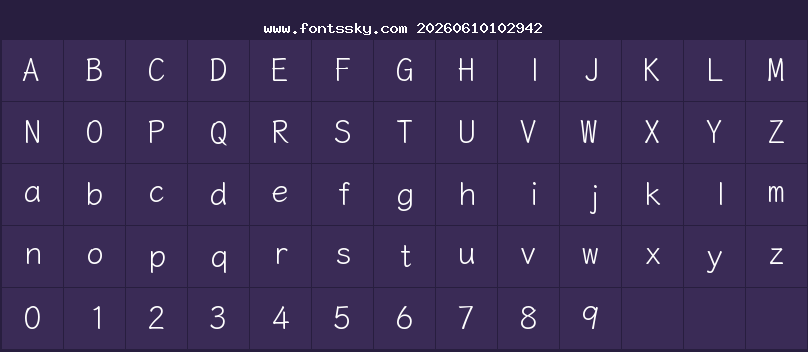
月星楷 繁 半寬 Light Preview
• Font Name: 月星楷 繁 半寬 Light
• Font ID: 1.103;GUIW;MoonStarsKaiTHW-Light
• Full Font Name: 月星楷 繁 半寬 Light
• Version: Version 1.103
• PostScript Name: MoonStarsKaiTHW-Light
• Character Count: 22718
• Designer: GuiWonder
About 月星楷 繁 半寬 Light.ttf
月星楷 繁 半寬 Light.ttf is a modern, elegant sans-serif font designed for ultimate readability and visual harmony. Perfect for branding, headlines, web design, and print materials.